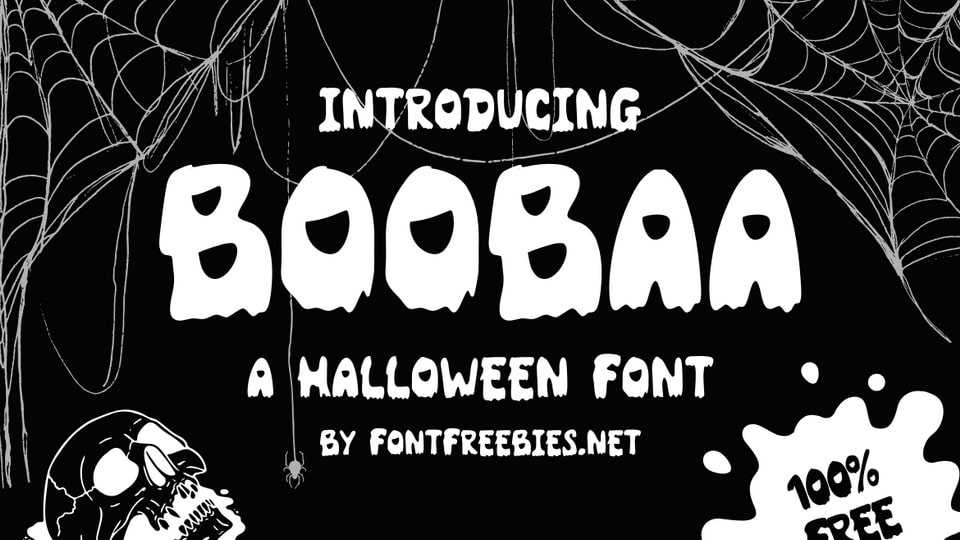
Download BooBaa font, a playful, creepy Halloween-themed typeface that is perfect for seasonal projects like flyers, posters, invitations, social media graphics, and more.